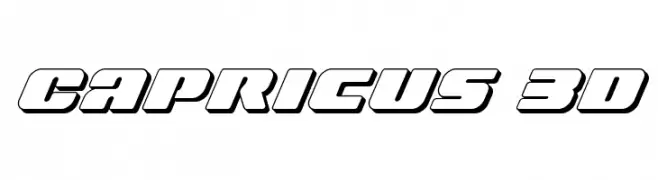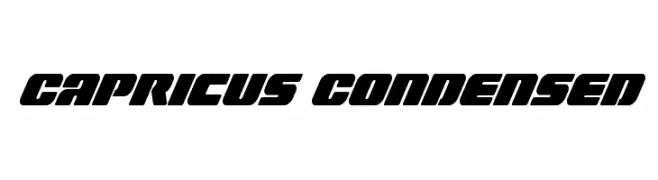
A vintage script font with elegant, flowing cursive strokes and high contrast.
An elongated, high-contrast serif font with a sophisticated and decorative style.
A bold, decorative font with a vintage Western style.
A pixelated, digital bitmap font with a retro tech aesthetic.
A decorative serif font with swirling embellishments and artistic flair.
A digital, segmented font inspired by LED displays, perfect for tech-themed designs.
An elegant, shadowed decorative font with intricate curves and a classic appeal.
A bold, geometric font with a digital, pixelated style.
A bold, geometric font with sharp angles and a futuristic style.
A bold, elegant font with tall, narrow characters and high contrast.
A bold, medieval-inspired font with sharp, angular strokes and pointed serifs.
A bold, dotted font with a pixelated, digital appearance.
A bold, condensed, and italicized font with high contrast and angular strokes.
A bold, italicized font with a gothic, medieval flair and sharp serifs.
A bold, condensed Gothic-style font with sharp, angular serifs.
A bold, italic font with sharp, angular edges and a historical flair.
A bold, gothic-inspired font with sharp, angular lines and a historical feel.